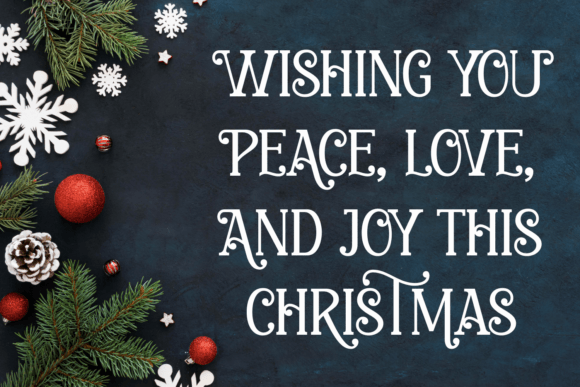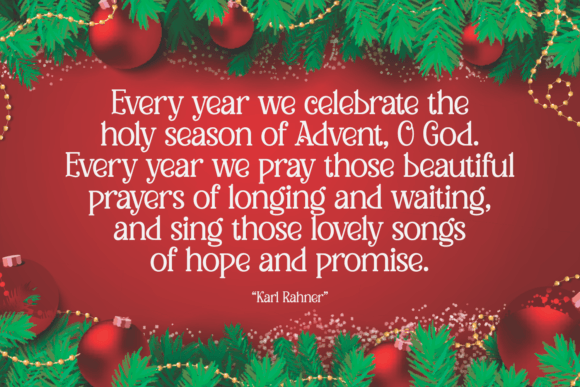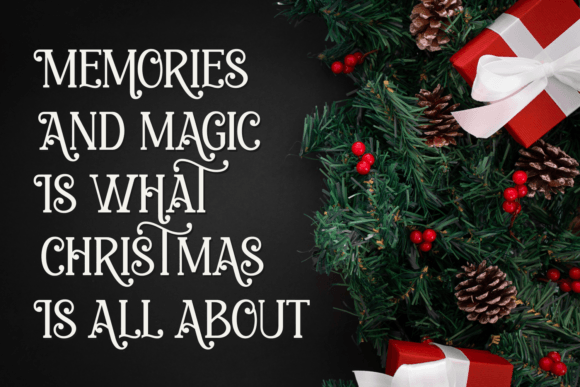
Christmas Relegion Font
Introducing “Christmas Relegion,” a modern serif font that seamlessly blends sophistication with a festive touch. Its sleek lines and contemporary design make it perfect for adding a touch of elegance to your holiday projects. Whether you’re crafting Christmas cards, invitations, or festive branding, Christmas Relegion brings a timeless charm to your text, capturing the spirit of the season with a modern twist.